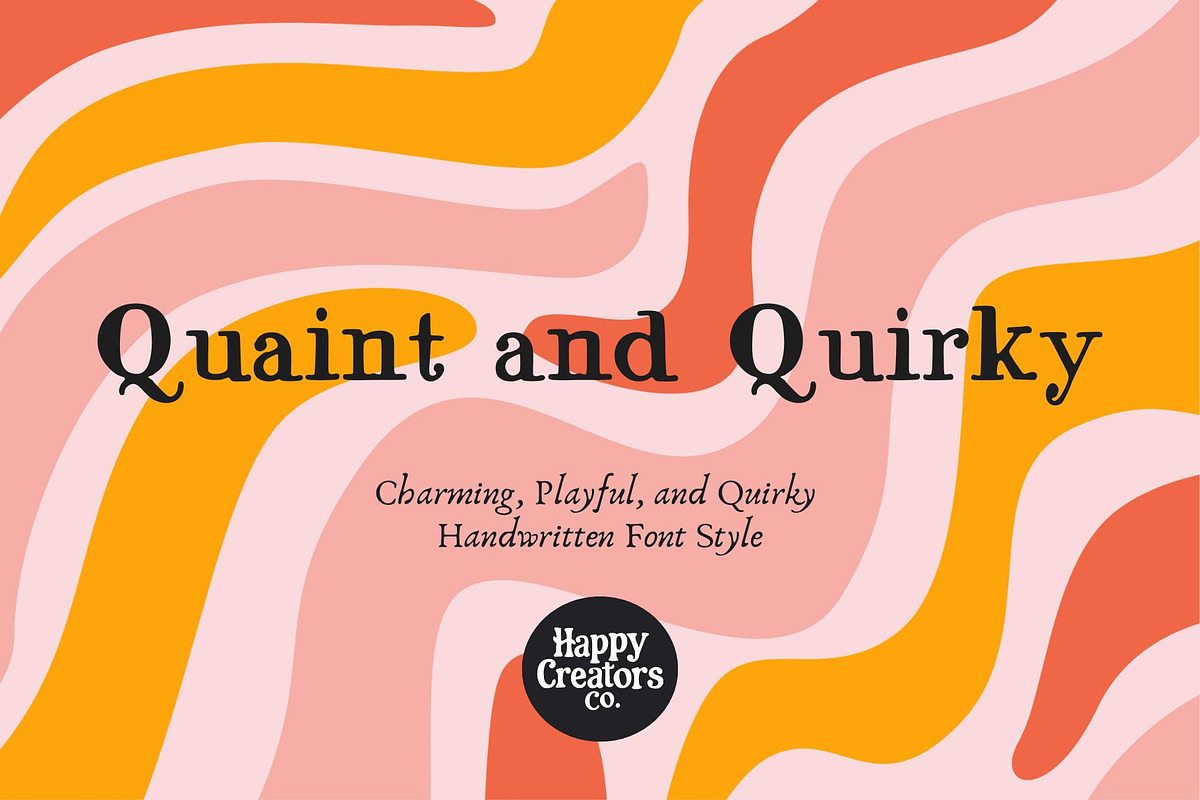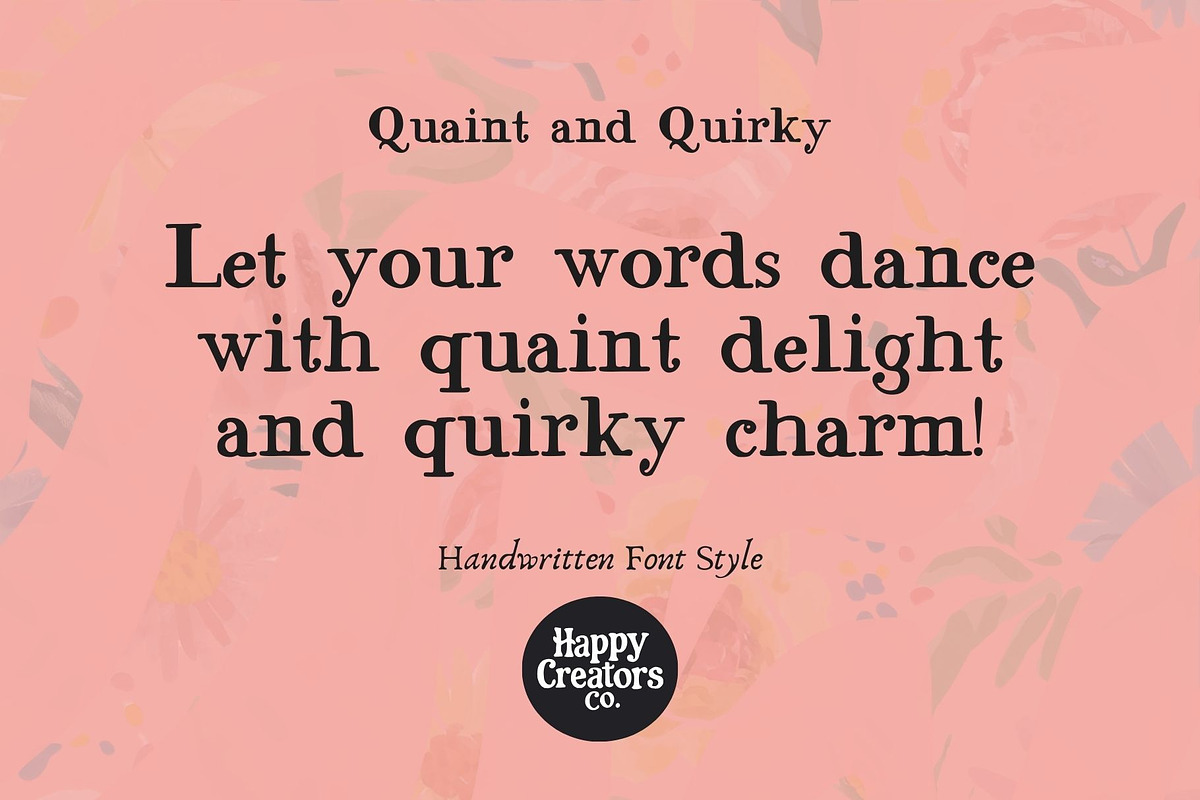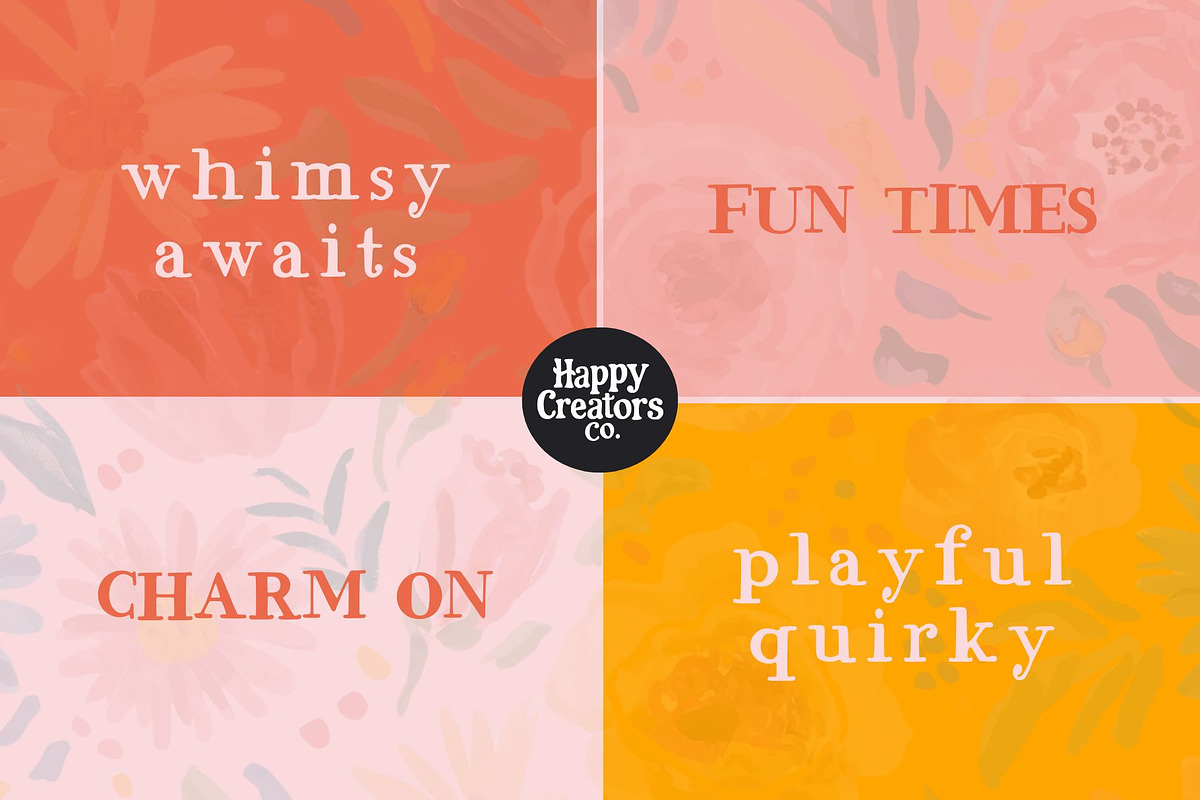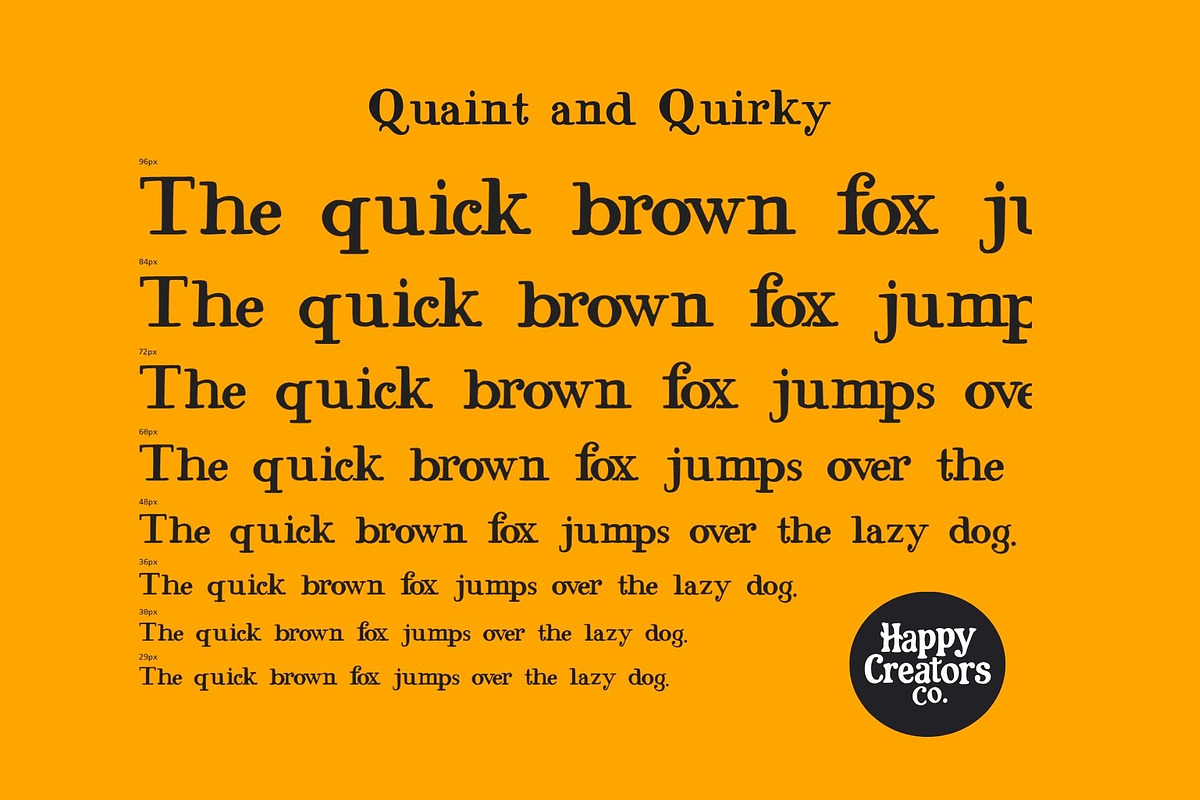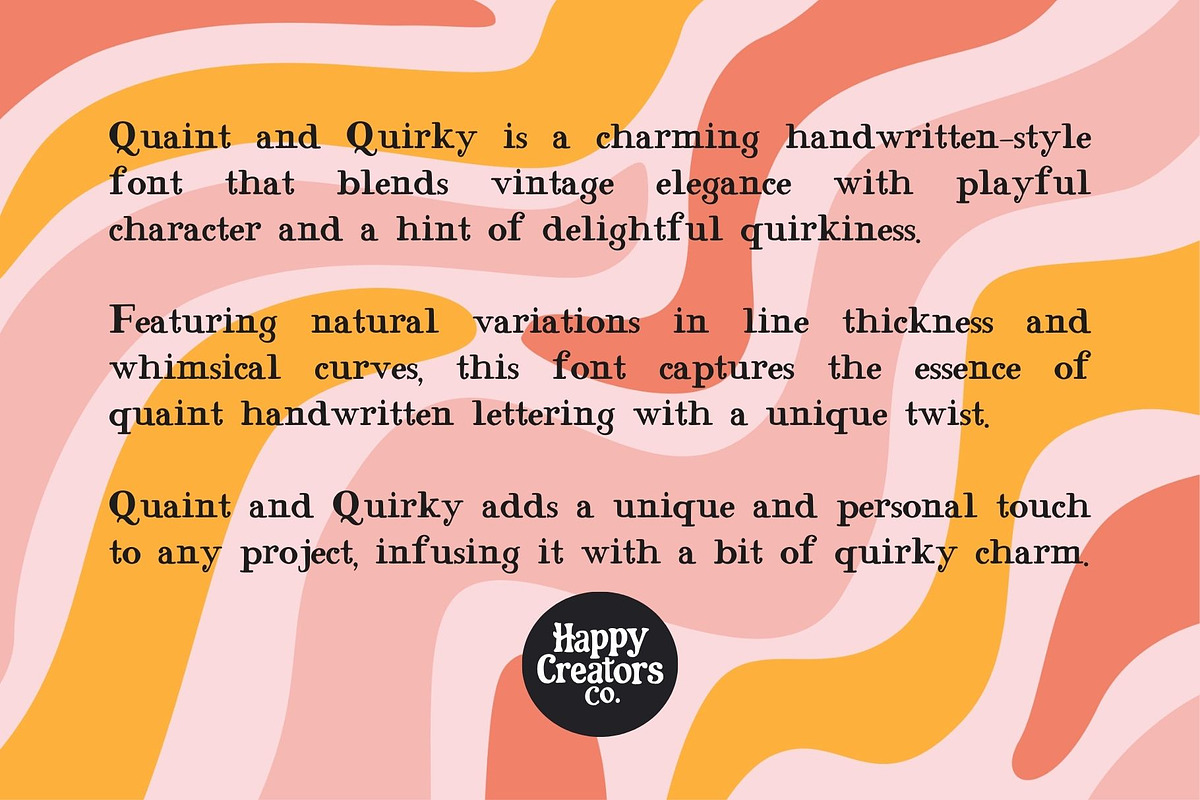
Quaint and Quirky Font
Quaint and Quirky is a charming handwritten-style book font that blends vintage elegance with playful character and a hint of delightful quirkiness. Featuring natural variations in line thickness and whimsical curves, this font captures the essence of quaint handwritten lettering with a unique twist. Its balanced 'Book' weight ensures readability and versatility, making it perfect for both decorative and practical applications. Ideal for invitations, greeting cards, branding, and more, Quaint and Quirky adds a unique and personal touch to any project, infusing it with a bit of quirky charm.
- Charming Handwritten Style: Infuse your designs with the warmth and personality of handwritten text.
- Balanced Book Weight: Ensures readability and versatility for both decorative and practical applications.
- Playful and Quirky Character: Adds a delightful twist to any project, making it truly stand out.